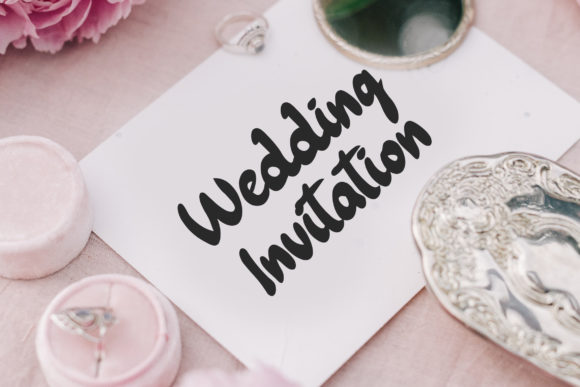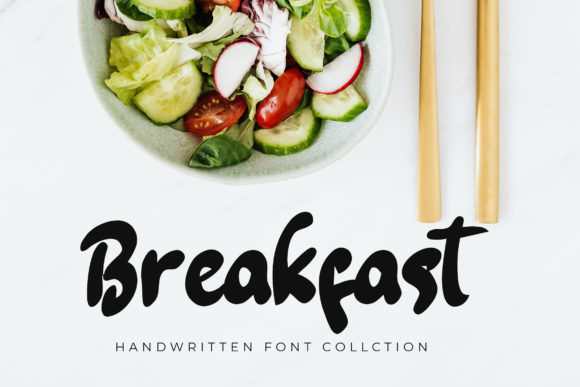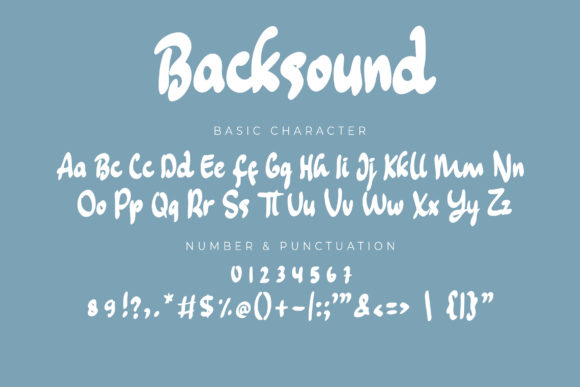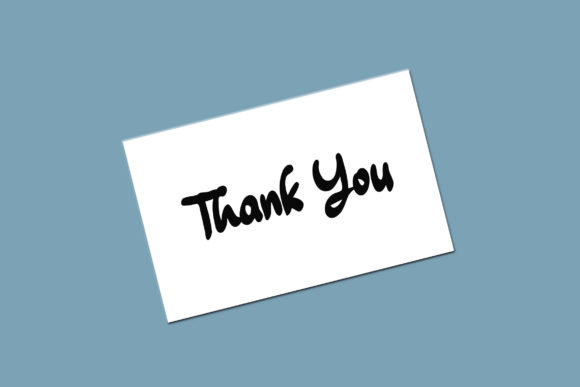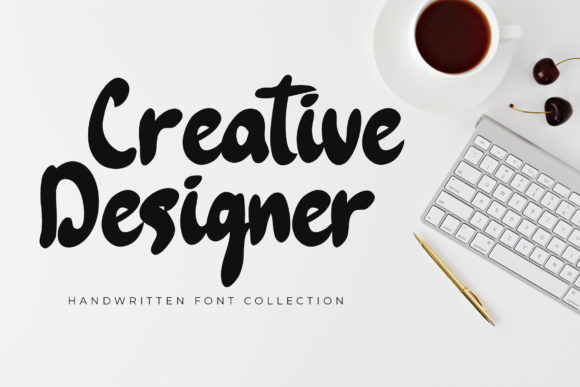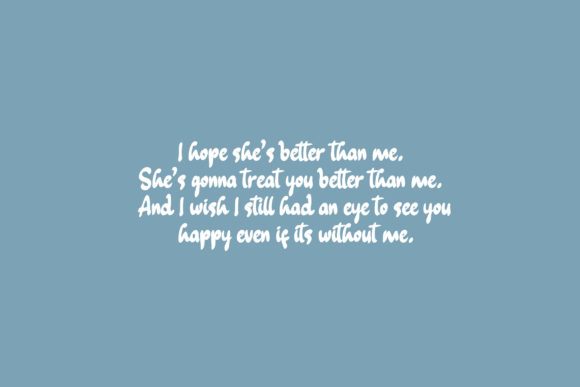
Backsound Font
About Backsound Font
Backsound is a bold and energetic brushed script font that commands attention and makes a strong impact. With its thick and expressive letterforms, this font adds a sense of confidence and boldness to your designs. Whether you’re working on logos, headlines, posters, or any other creative project, Backsound has the potential to elevate your typography and make a statement.
The thick strokes of Backsound give it a robust and powerful appearance, making it suitable for a wide range of topics and design styles. It can be used for everything from bold and dynamic branding to eye-catching headlines that demand attention. Its versatility allows it to be used in various contexts and applications, making it a valuable addition to your font library.
The brush-style nature of Backsound adds an element of texture and authenticity to your designs. The natural variations in stroke width and the fluidity of the letterforms give the font a handcrafted feel, making it visually appealing and engaging. This adds personality and character to your typography, setting it apart from more traditional or generic fonts.
Despite its bold and thick appearance, Backsound remains legible and readable. Each letter is carefully crafted to ensure clarity, making it suitable for both display and smaller sizes. This allows you to use Backsound in a wide range of design projects without compromising the readability of your text.
Backsound is a versatile font that can be used in various design contexts. It is especially well-suited for projects that require a bold and impactful look, such as branding, advertising, packaging, and more. Its potential to elevate any creation makes it a valuable asset in your font library, ready to bring energy and excitement to your designs.
In summary, Backsound is a bold and energetic brushed script font with thick letterforms that make a strong impact. It adds confidence and boldness to your typography, making it suitable for a wide range of design projects. Its handcrafted appearance and legibility make it versatile and engaging. Add Backsound to your font library and witness how it elevates your creations with its powerful presence.